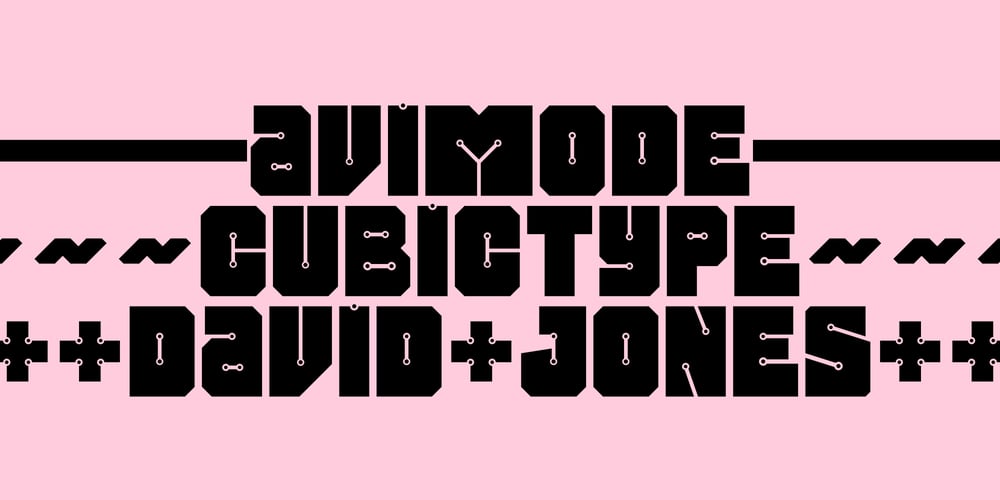
Avimode
Avimode font
Avimode Font Family was designed by David Jones and published by Cubic Type. Avimode contains 1 styles and family package options. Avimode is bold, sharp, and futuristic. An original CubicType design with a design inspired by the holes and tracks on printed circuit boards. Text set in Avimode fills almost all the space available to it, and has small details. CubicType therefore recommends using this type at large sizes and with processes that are faithful to its fine details.It would look great cut 2 metres high on the side of your galactic spaceship.Please be aware that some of the lettershapes have sharp pointy corners: HANDLE WITH CARE!